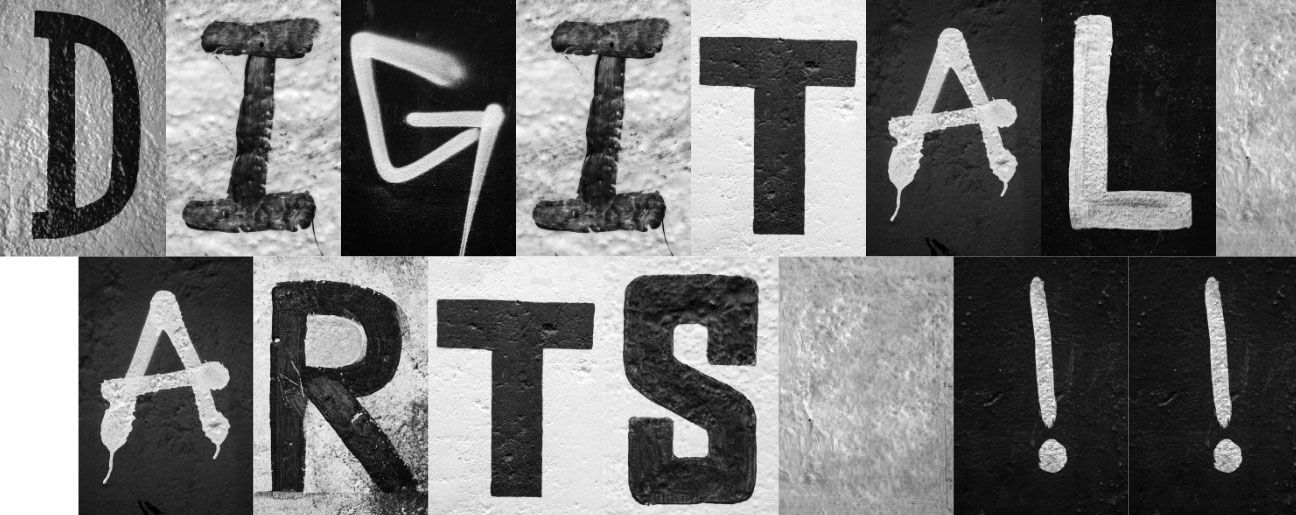
The Berlin Wall inspires a new font for the 30th anniversary of its fall
Words can stop walls when written in this free font.
Voice of the Wall is the reason, a new typeface inspired by original graffiti from the Berlin Wall and designed as part of a campaign to mark the 30th anniversary of the wall’s fall in November 1989.
Created by creative agency HEIMAT Berlin for non-profit street art association The Cultural Heirs, the font strikes us as a celebration of three things: type, street art and freedom.
HEIMAT started the project by asking themselves if walls could talk, what would the Berlin Wall say today? They then based the 26 letters on actual graffiti from the Berlin Wall, giving the Wall both a voice and the ability to discuss freedom in an increasingly-bordered world.
“Street art and iconic design can have a dramatic impact on culture, and creating a campaign to celebrate freedom and warn about division to mark this important anniversary was very meaningful to us,” says Matthias Storath, CCO at HEIMAT.
“We hope that this project will help remind audiences of our hard-won freedoms, which we must cherish and enjoy.”
The project also includes prints, book and the below video in which we hear sirens, dogs barking and gunshots, depicting the suffering the Wall witnessed while it stood.
The piece ends with the warning that ‘Division is freedom’s biggest threat’.